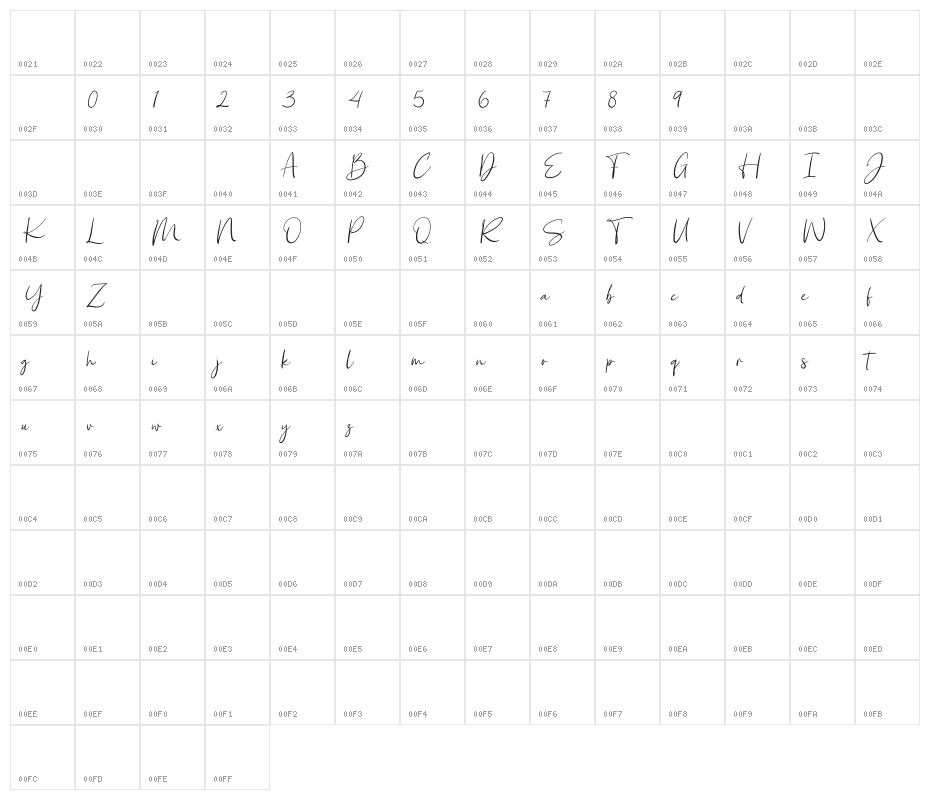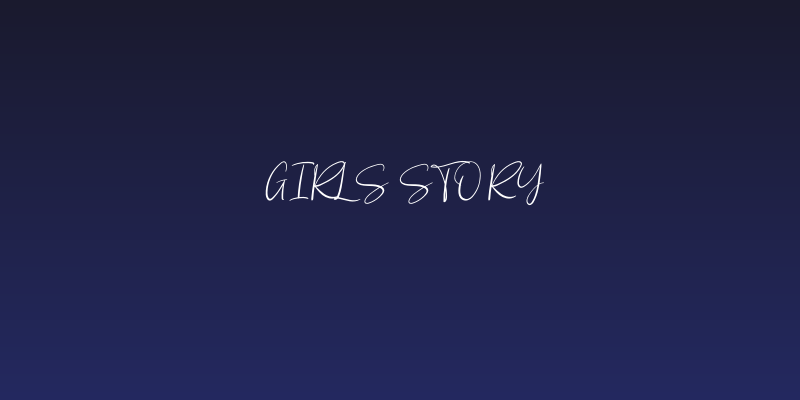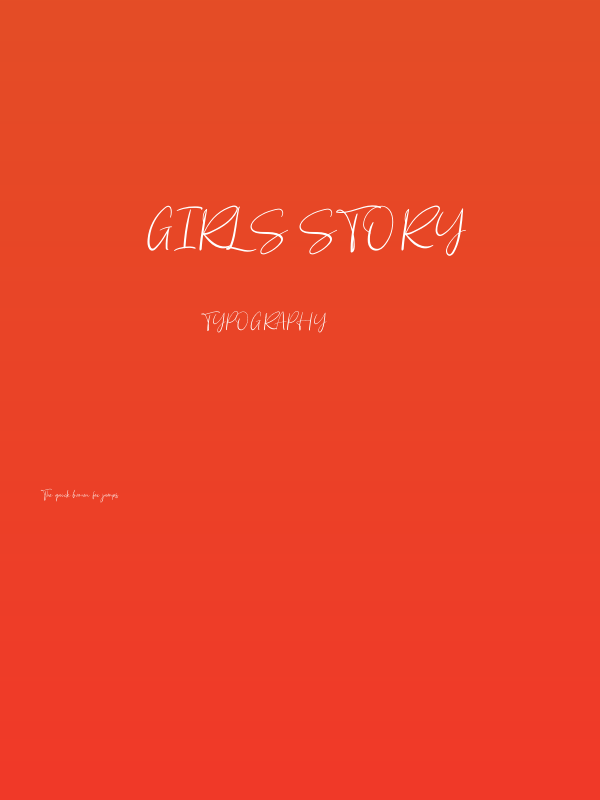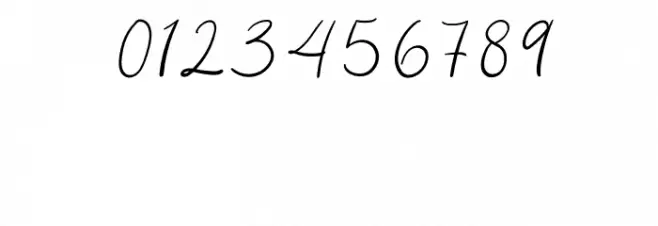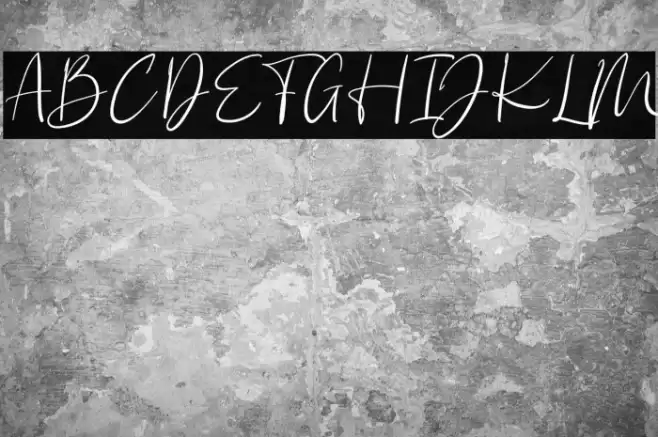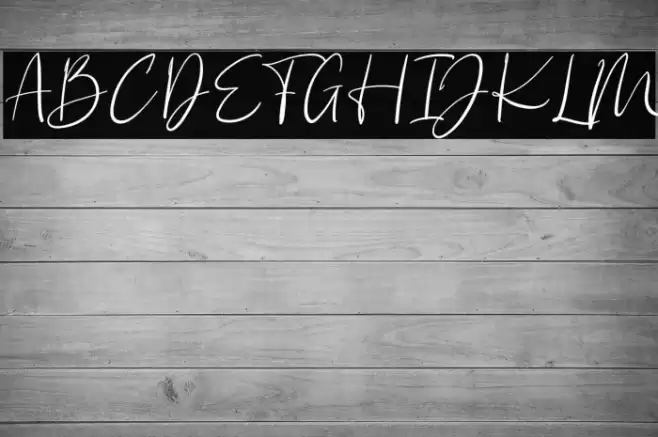
Girls Story Font
Girls Story Description
This font exudes a playful and elegant handwritten style, characterized by its fluid and flowing letterforms. The uppercase letters are bold and expressive, with a slight slant that adds a dynamic feel. The lowercase letters maintain a consistent style, offering a smooth and connected appearance that mimics natural handwriting. The numbers are clear and legible, maintaining the same playful aesthetic. This font is perfect for projects that require a personal touch, such as invitations, greeting cards, or branding materials. Its unique style makes it stand out while remaining easy to read.
| Proposed Projects | Ideal for invitations, greeting cards, branding materials, and personal projects. |